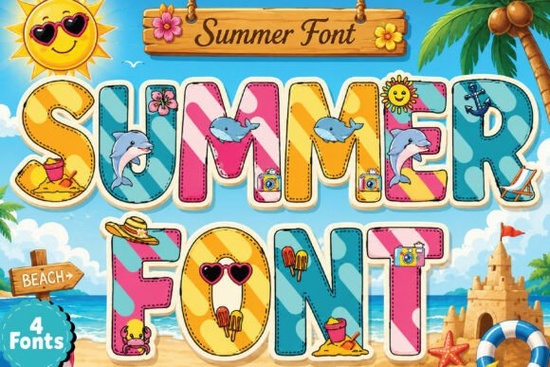
If you're looking for a cheerful, ready-to-use font that captures the relaxed energy of summer think sandy toes, ocean breezes, and bright sunsets the Summer Font is a solid choice. This pack isn’t just one font; it’s a thoughtfully assembled collection of alphabets and letters designed with tropical holidays in mind. Whether you’re making t-shirts for a beachside boutique, prepping classroom activities for end-of-year celebrations, or building digital downloads for Etsy, this bundle delivers consistent color, playful shapes, and clear legibility across common design tools.
What’s actually inside the Summer Font pack?
The Summer Alphabets & Letters Pack includes multiple alphabet variations all sharing the same sunny, hand-drawn spirit. You’ll find uppercase and lowercase letters, numerals, punctuation, and often bonus glyphs like suns, palm trees, or wave accents (depending on the specific version). Each letter has subtle texture and rounded edges, giving it warmth without sacrificing readability. Because it’s built as a color font (OpenType-SVG), the full vibrancy only appears in software that supports it like Illustrator, Photoshop, Canva, and Figma. That’s why previews sometimes look grayscale: it’s not a flaw, just how the system renders it before opening in compatible apps.
Where does this font work best?
This isn’t a one-size-fits-all display font. It shines where personality and seasonality matter most:
- Summer t-shirt designs especially for small-batch POD shops or local surf shops
- Beach and vacation crafts, like DIY luggage tags or travel journal stickers
- Tropical party invitations and matching menu cards or photo booth props
- Kids’ crafts and classroom activities, such as summer reading charts or bulletin board headers
- Sublimation projects for tumblers, towels, or tote bags (test colors first on your substrate)
- Scrapbooking and planners, where a light, friendly tone helps balance busy layouts
- Social media posts and banners great for Instagram Stories or Facebook event graphics
How does it compare to other seasonal fonts?
If you already use the Patriotic Charm Font, you’ll notice similar attention to color detail and thematic cohesion but with a completely different mood. Where Patriotic Charm leans into bold reds, whites, and blues with star motifs, the Summer Font swaps flags for flip-flops and fireworks for flamingos. It shares visual DNA with the Summer Beach Font, but stands out with more varied letterforms and broader glyph coverage. And unlike the Summer Font Colorful Fonts bundle which offers multiple distinct typefaces the Summer Font focuses on depth within one cohesive family, making it easier to maintain consistency across multi-element projects.